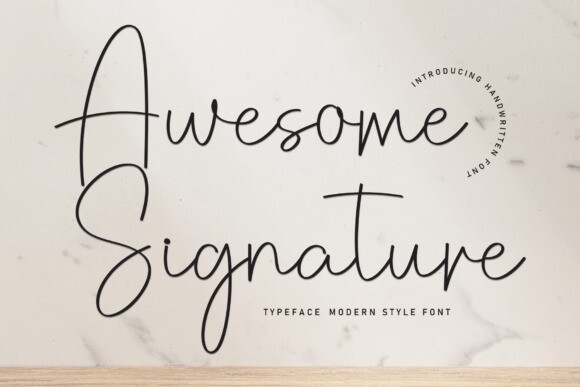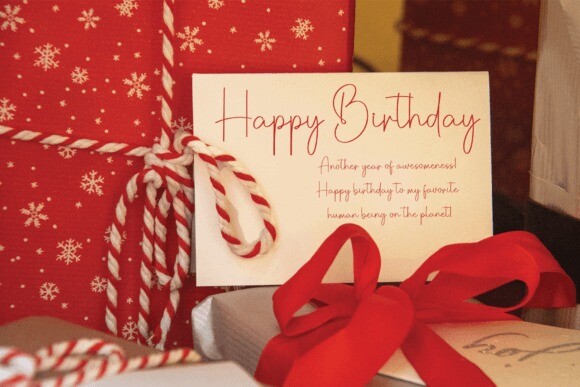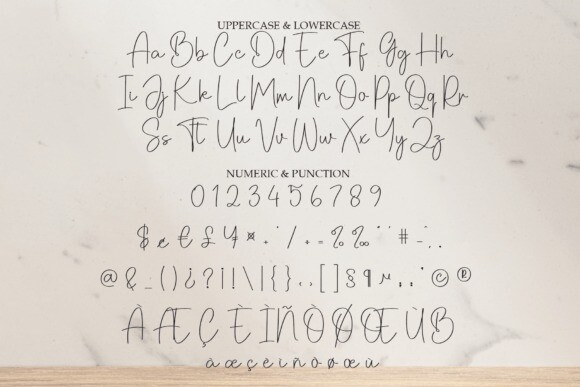
Awesome Signature Font
Awesome Signature Font, With its smooth and flowing lines, this font captures a sense of grace and charm, making it ideal for adding a personal touch to documents, invitations, or any creative project. Its simplicity and versatility make it a popular choice for individuals seeking a classic and timeless signature font.